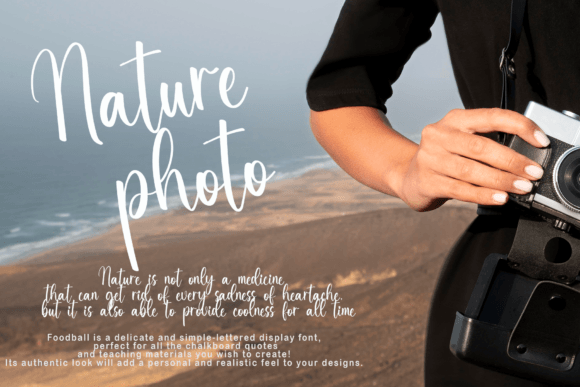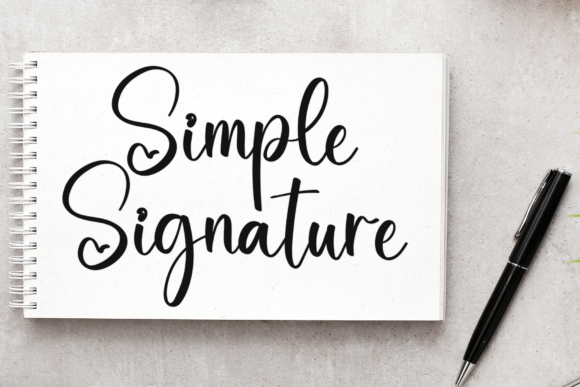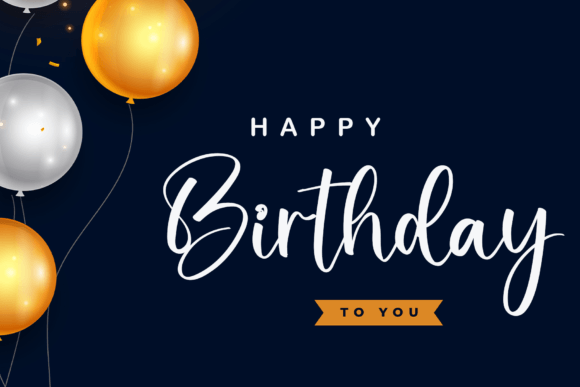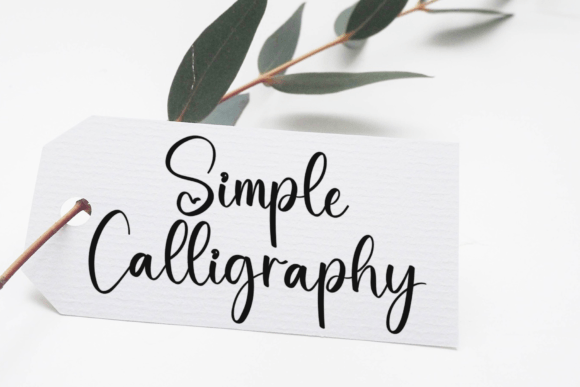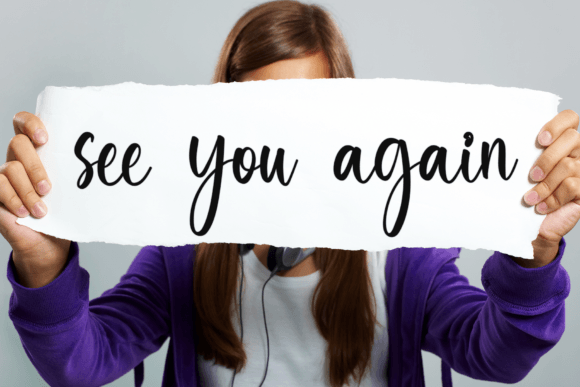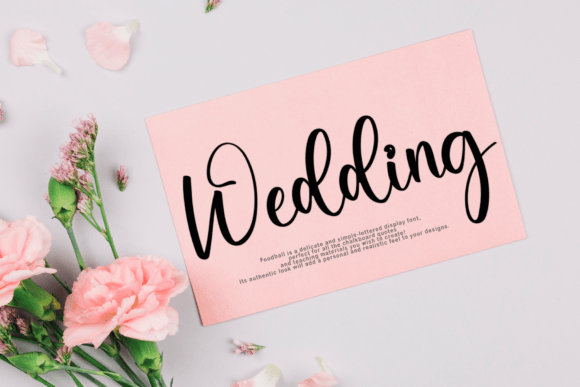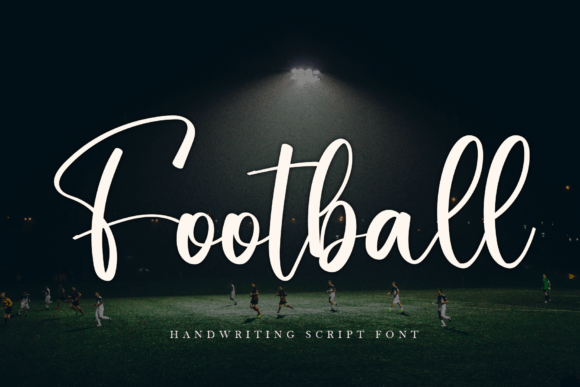
Introducing Football Font: The Ultimate Choice for Creative Projects
Are you a designer, crafter, or DIY enthusiast looking for a font that can add a personal touch to your creative projects? Look no further than Football Font, a cute and casual handwritten font that exudes an incredibly friendly feel. In this article, we’ll explore the features and benefits of Football Font, and how it can elevate your designs and projects to the next level.
What is Football Font?
Football Font is a unique and charming handwritten font that is perfect for a wide range of creative applications. Its casual and friendly feel makes it ideal for designers and crafters who want to add a personal touch to their work. Whether you’re creating social media graphics, calligraphy scripts, or DIY projects, Football Font is the perfect choice.
Key Features of Football Font
- Cute and Casual Design: Football Font has a playful and approachable design that is sure to capture the attention of your audience.
- Handwritten Style: The font’s handwritten style gives it a personal and unique feel that is perfect for creative projects.
- Friendly Feel: Football Font has an incredibly friendly feel that makes it perfect for designs that require a personal touch.
- Versatile: The font is versatile and can be used for a wide range of creative applications, from social media graphics to calligraphy scripts and DIY projects.
Why Choose Football Font?
There are many reasons why Football Font is the perfect choice for designers and crafters. Here are a few:
- Easy to Read: Football Font is easy to read, making it perfect for designs that require a clear and concise message.
- Unique and Creative: The font’s unique and creative design makes it stand out from other fonts, ensuring that your designs will be noticed.
- Customizable: Football Font can be customized to fit your design needs, allowing you to create unique and personalized designs.
Using Football Font for Instagram and Social Media
Football Font is perfect for Instagram and social media graphics. Its cute and casual design makes it ideal for creating engaging and eye-catching graphics that will capture the attention of your audience. Here are a few ways you can use Football Font for Instagram and social media:
- Quotes and Captions: Use Football Font to create beautiful quotes and captions for your Instagram posts.
- Social Media Graphics: Use the font to create engaging social media graphics, such as flyers, posters, and brochures.
- Stories and Reels: Use Football Font to create eye-catching stories and reels that will capture the attention of your audience.
Using Football Font for Calligraphy and DIY Projects
Football Font is also perfect for calligraphy and DIY projects. Its handwritten style and friendly feel make it ideal for creating personalized and unique designs. Here are a few ways you can use Football Font for calligraphy and DIY projects:
- Calligraphy Scripts: Use Football Font to create beautiful calligraphy scripts for special occasions, such as weddings and birthdays.
- DIY Cards and Invitations: Use the font to create personalized DIY cards and invitations for special occasions.
- Crafting Projects: Use Football Font to create unique and personalized crafting projects, such as scrapbooking and journaling.
Football Font is a unique and charming handwritten font that is perfect for designers, crafters, and DIY enthusiasts. Its cute and casual design, friendly feel, and versatility make it ideal for a wide range of creative applications. Whether you’re creating social media graphics, calligraphy scripts, or DIY projects, Football Font is the perfect choice. So why wait? Download Football Font today and start creating unique and personalized designs that will capture the attention of your audience!